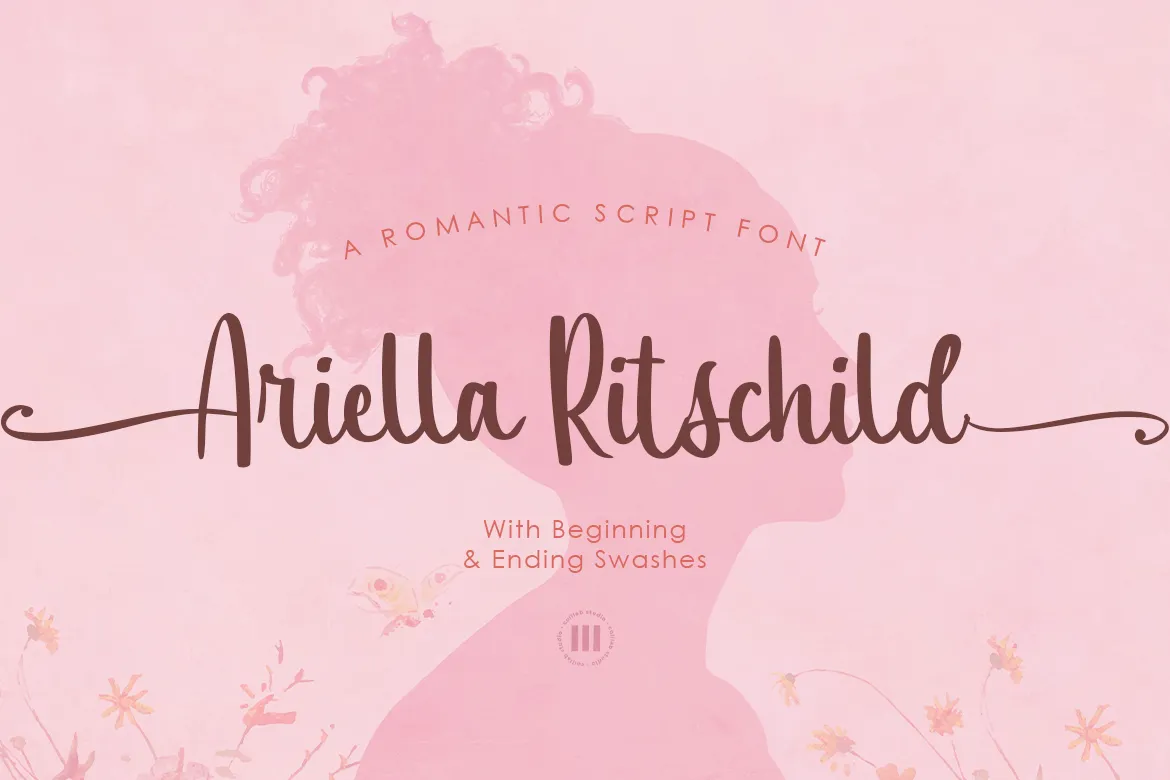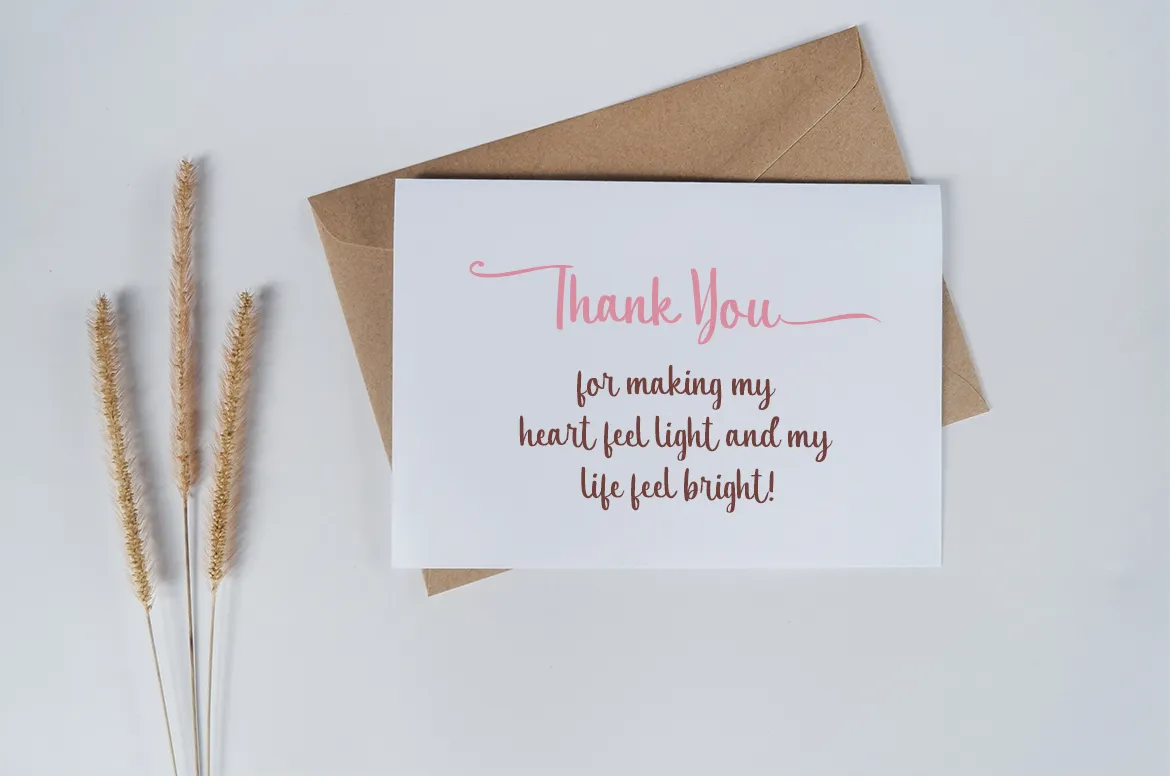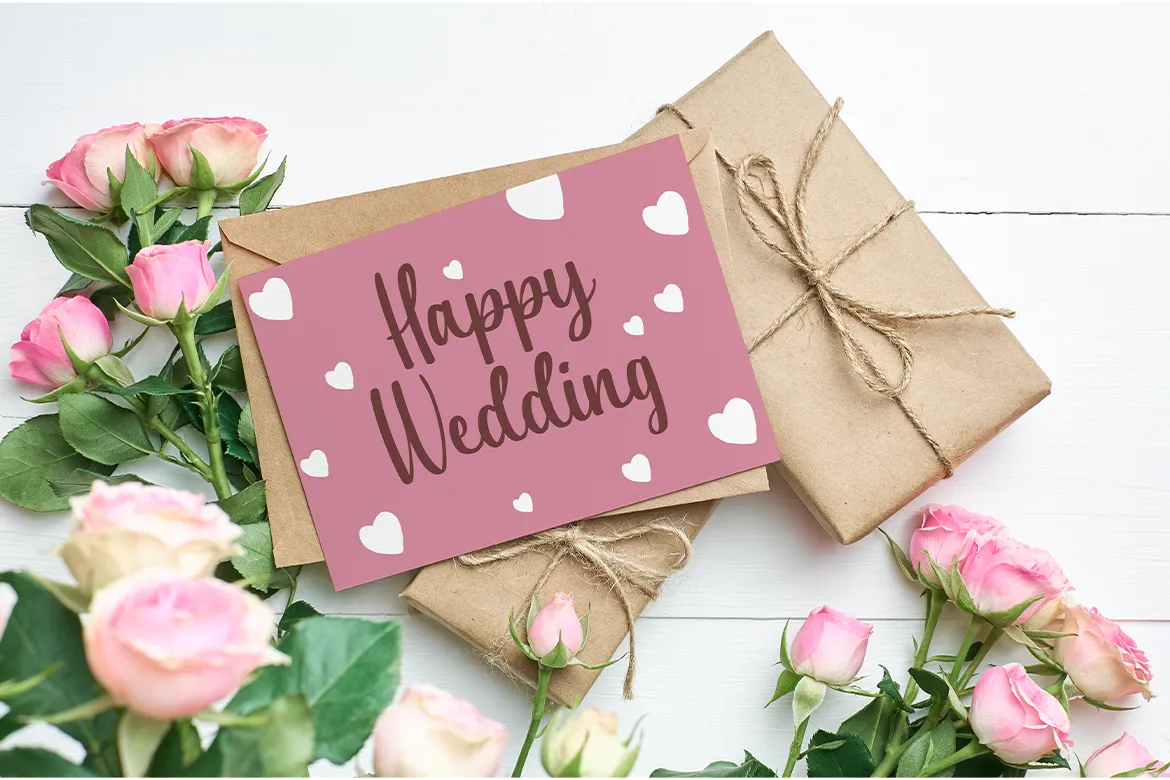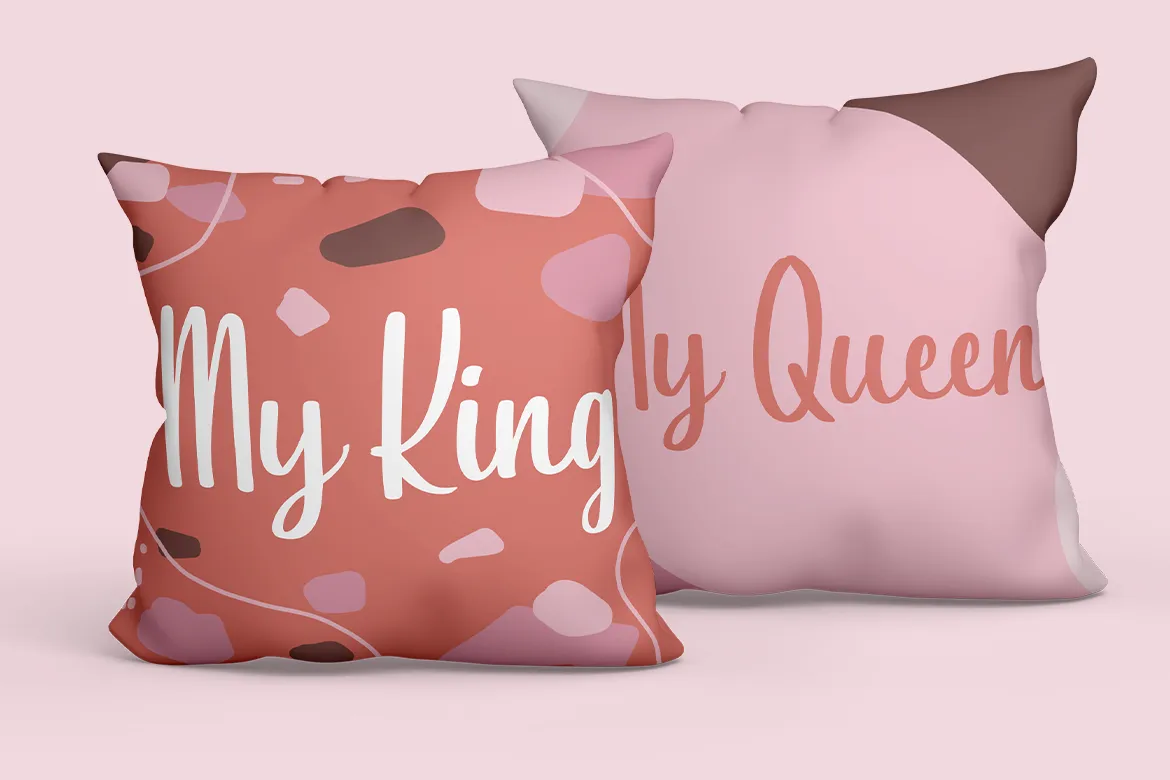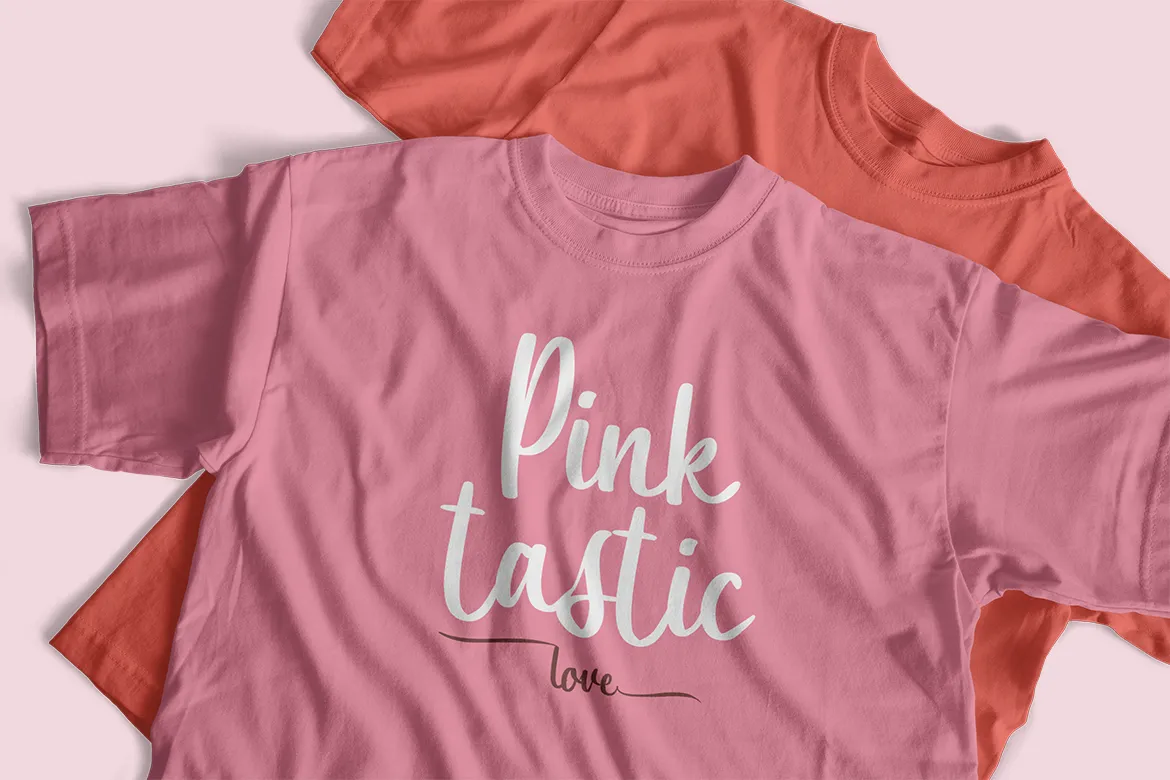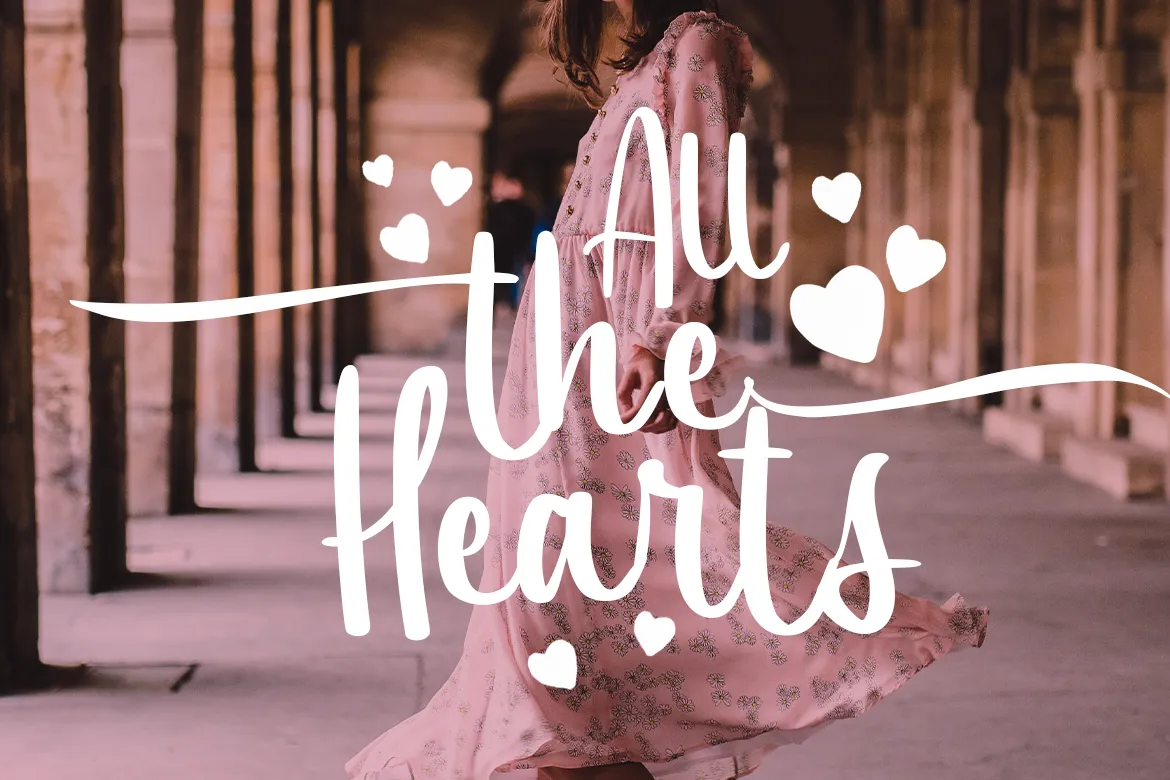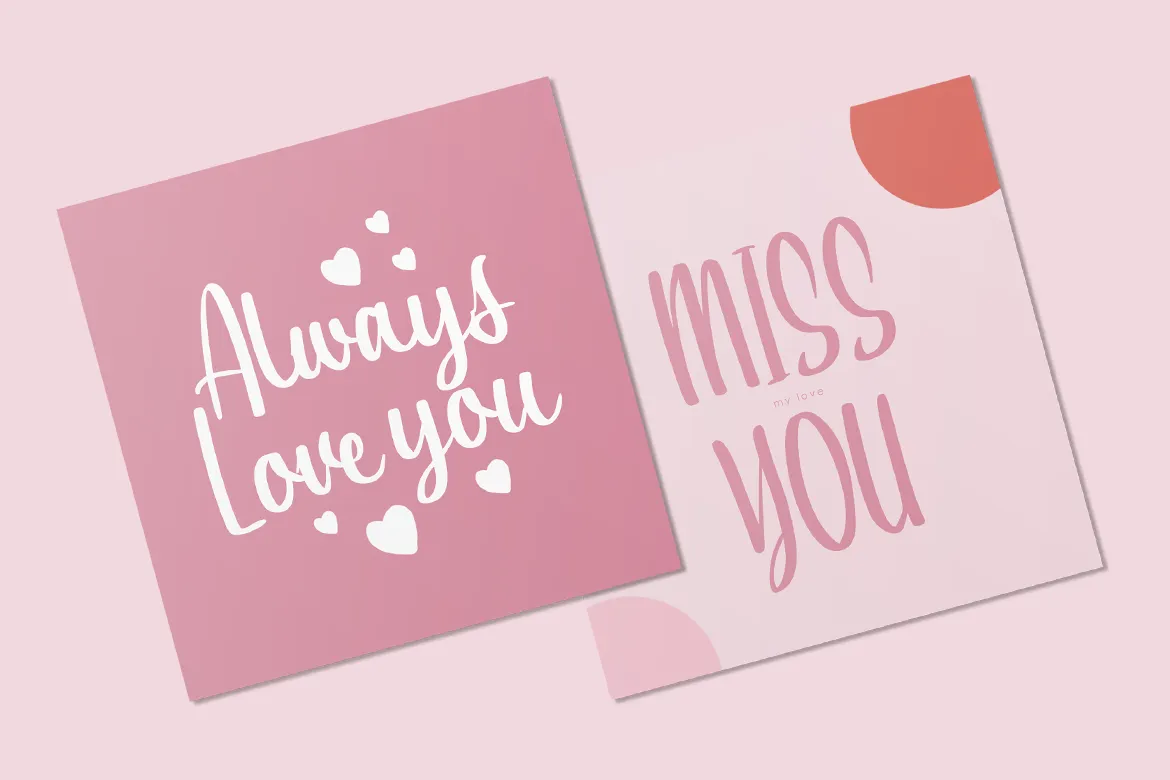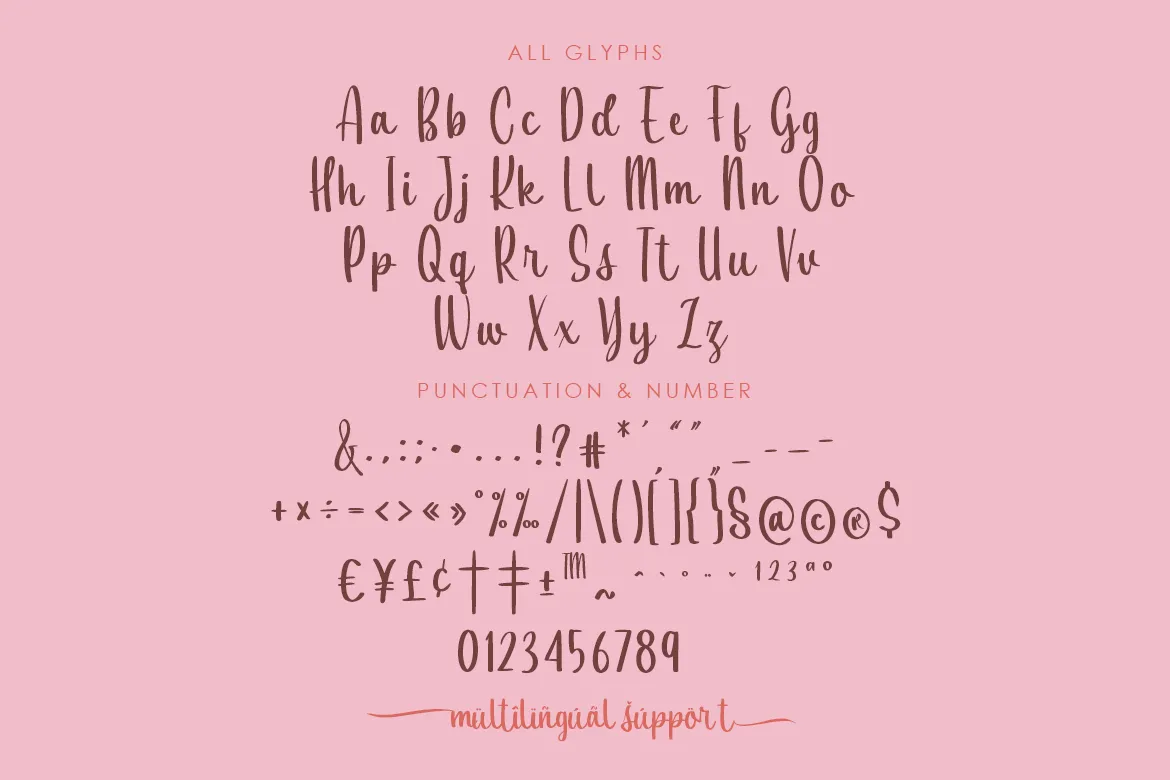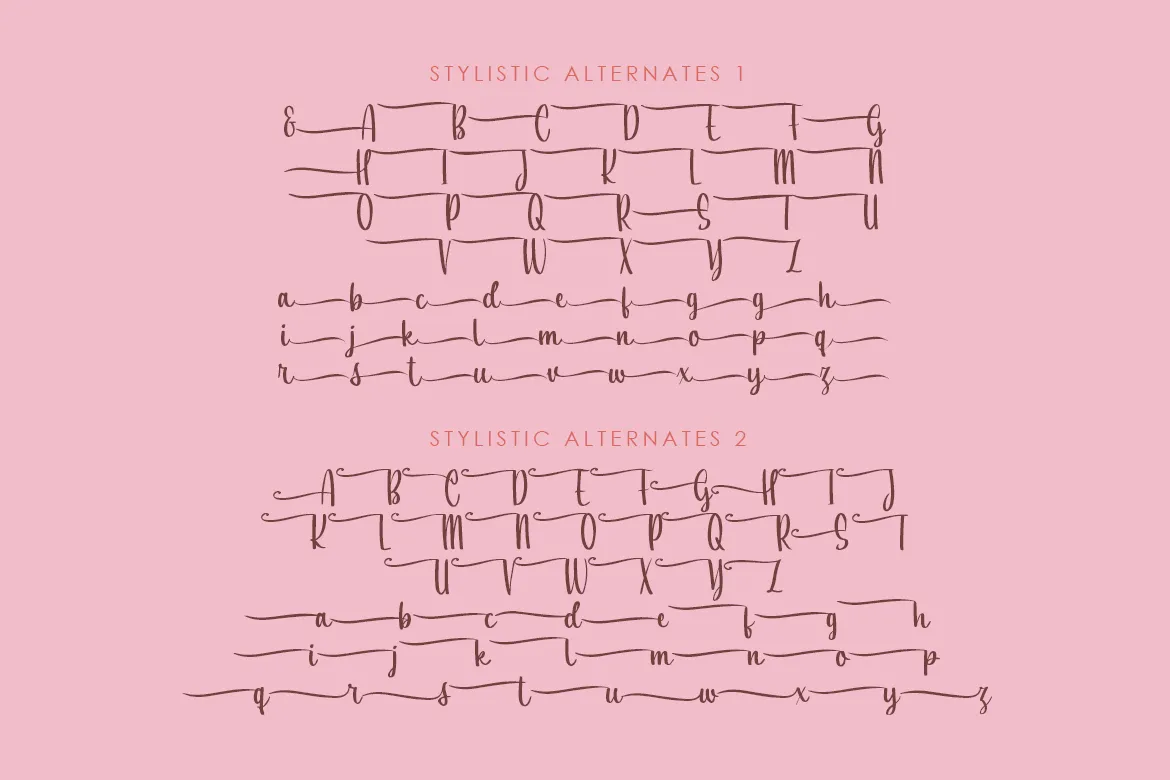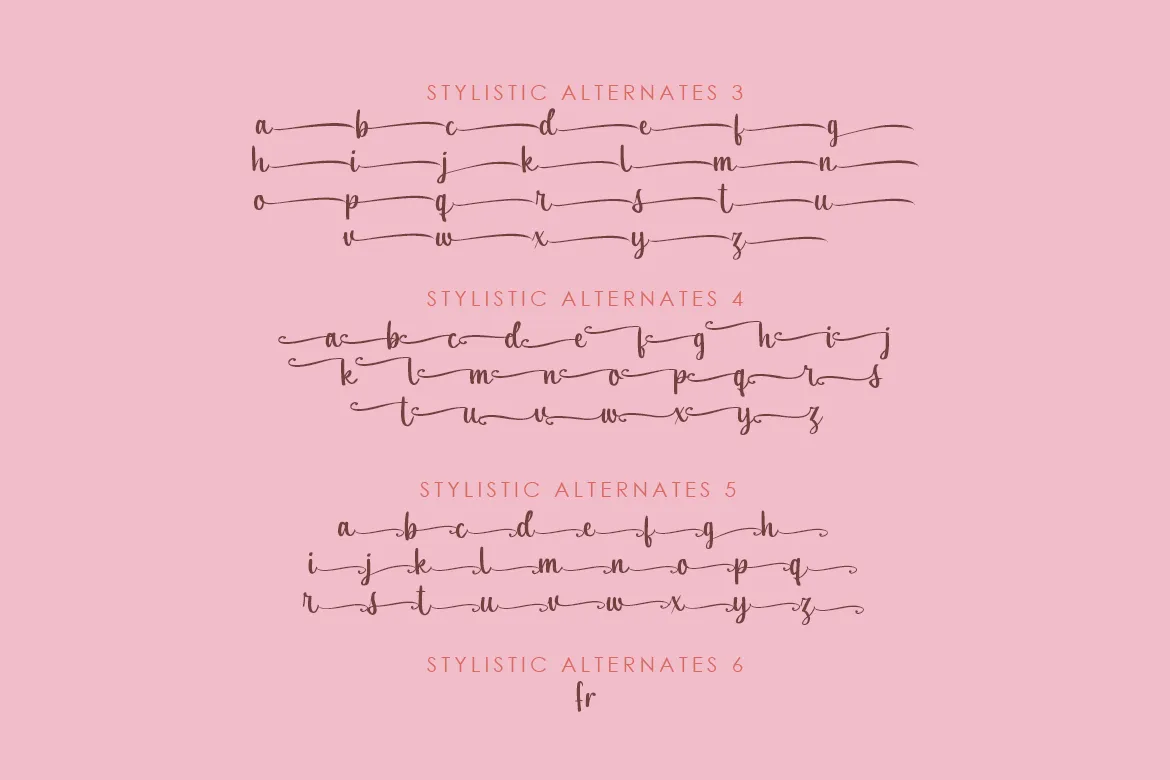
A font is more than just an accent, it makes a statement. Ariella Ritschild, with its end-to-end swashes, is more than a font, it’s a declaration of love.
Ariella Ritschild is a romantic script font with beginning and ending swashes. The beginning swashes can be used for the first letter of each word, while the ending swashes can be used for the last letter of each word, or any combination in between! You can also use Ariella Ritschild to create beautiful logos, invitations, headings, or anything your heart desires!
Ariella Ritschild comes with uppercase and lowercase letters as well as standard numbers.